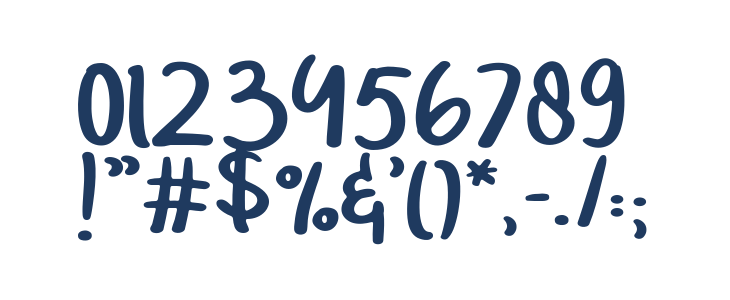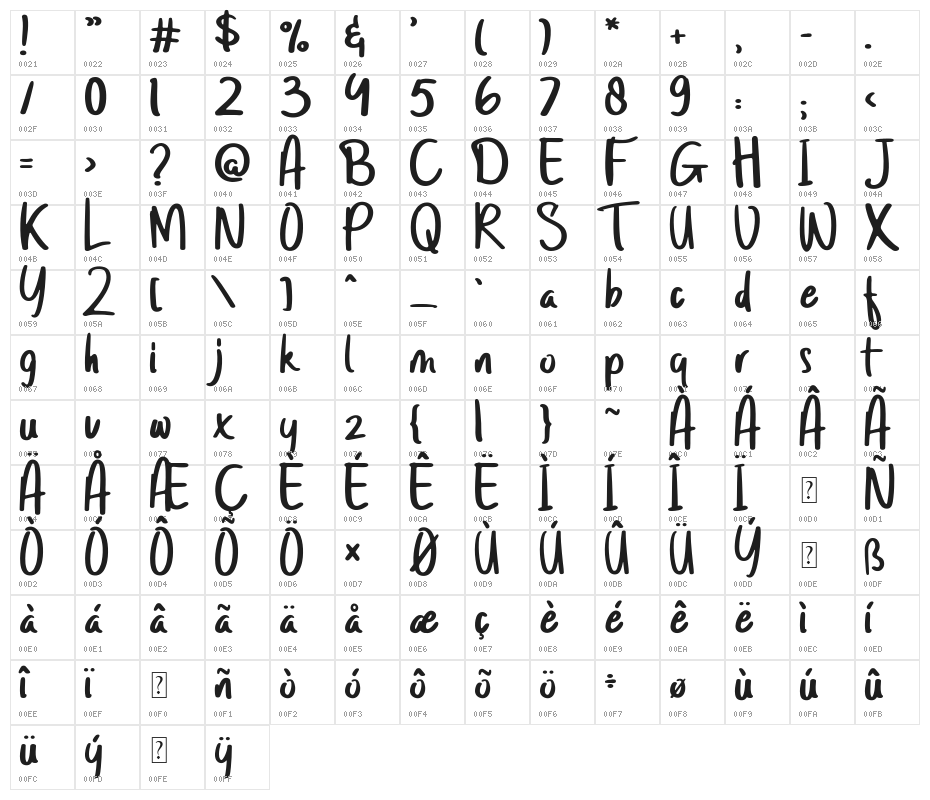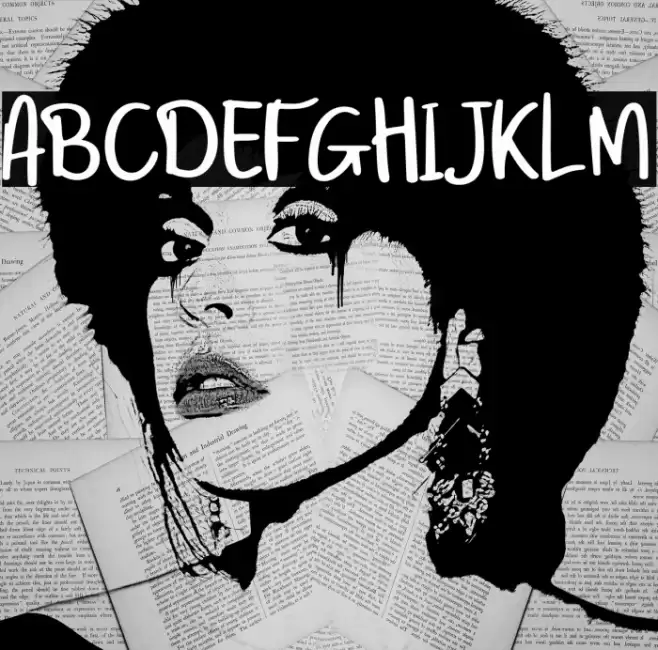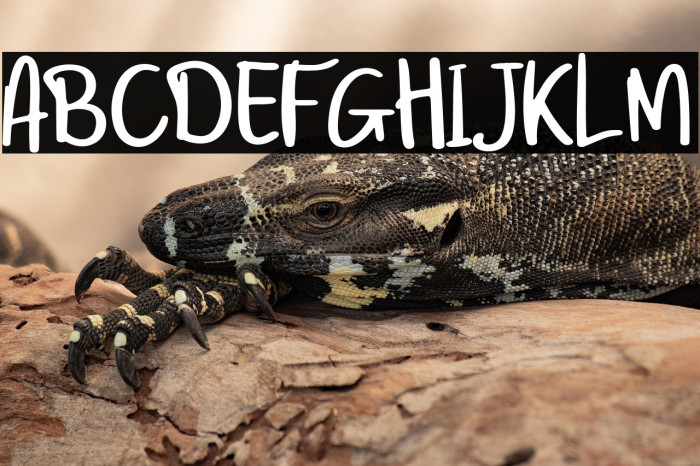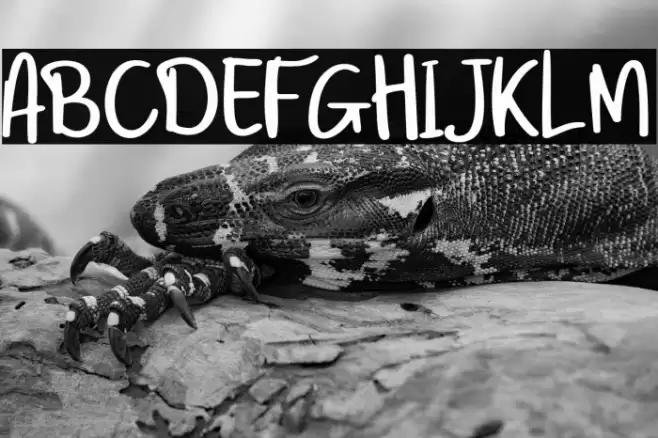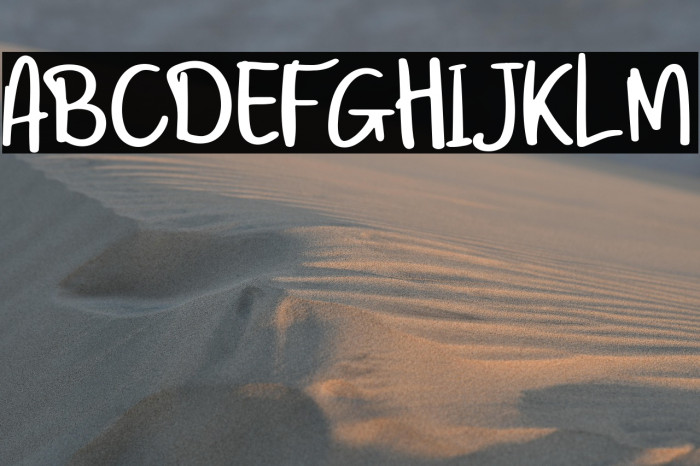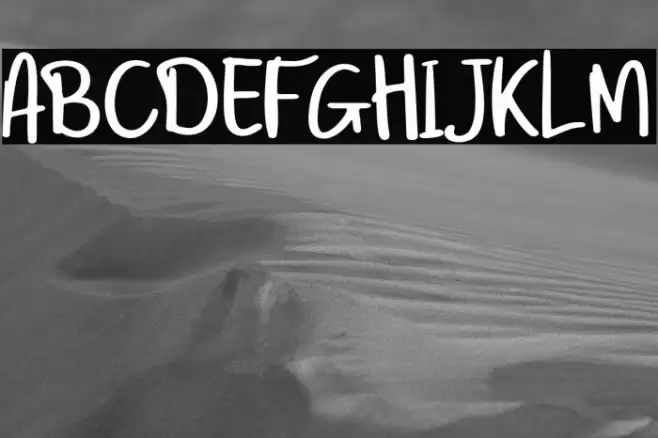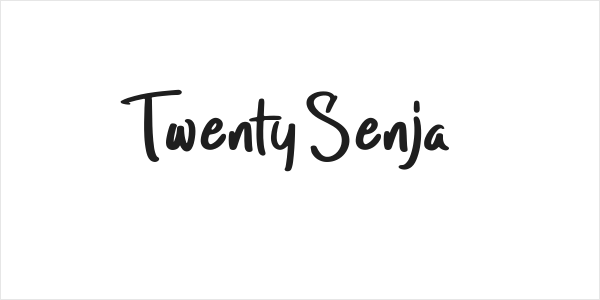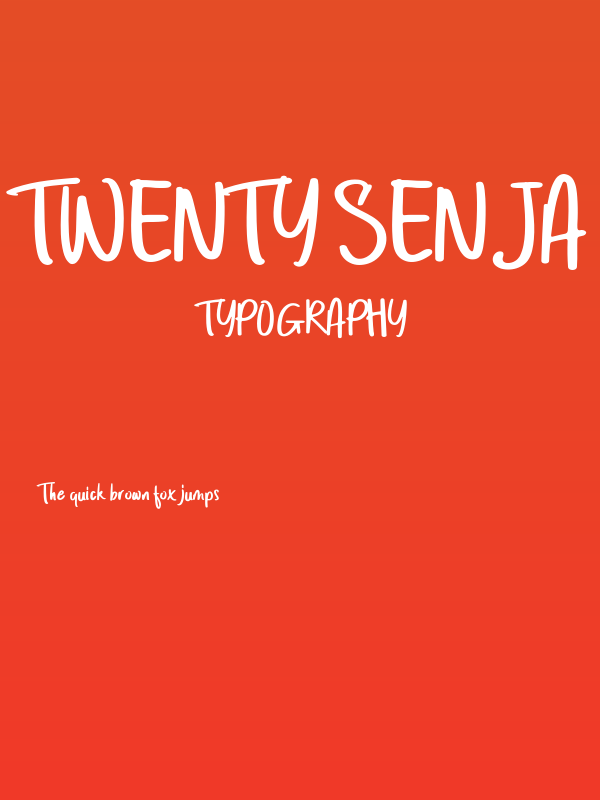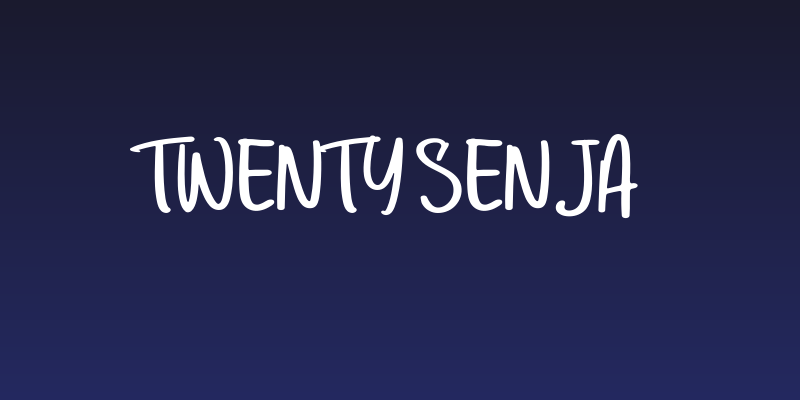
Twenty Senja Font
Twenty Senja Description
This font features a playful and casual handwritten style, characterized by its smooth, flowing lines and slightly irregular shapes. The uppercase letters are bold and prominent, while the lowercase letters maintain a consistent, rounded form. Numbers and special characters are equally expressive, adding to the font's overall charm. The strokes are moderately thick, giving the font a substantial presence without being overwhelming. This style is perfect for projects that require a personal touch, such as greeting cards, invitations, or playful branding materials. The font's informal nature makes it ideal for conveying warmth and friendliness.
| Proposed Projects | Ideal for greeting cards, invitations, playful branding, and personal projects. |